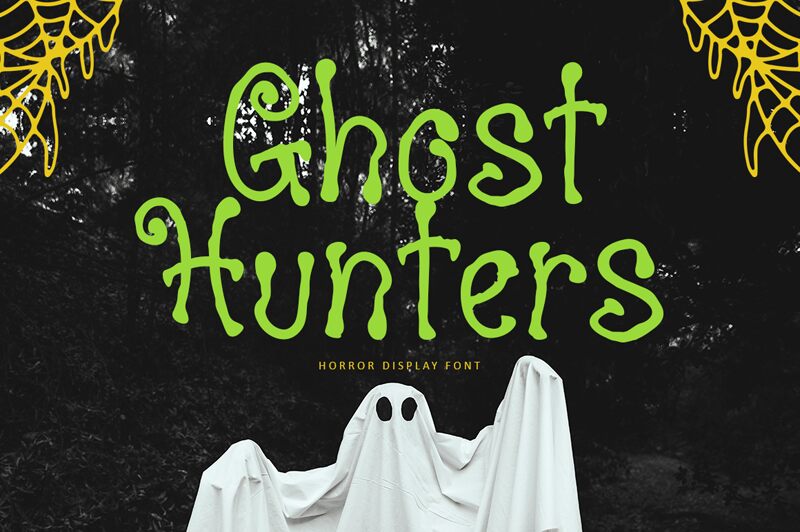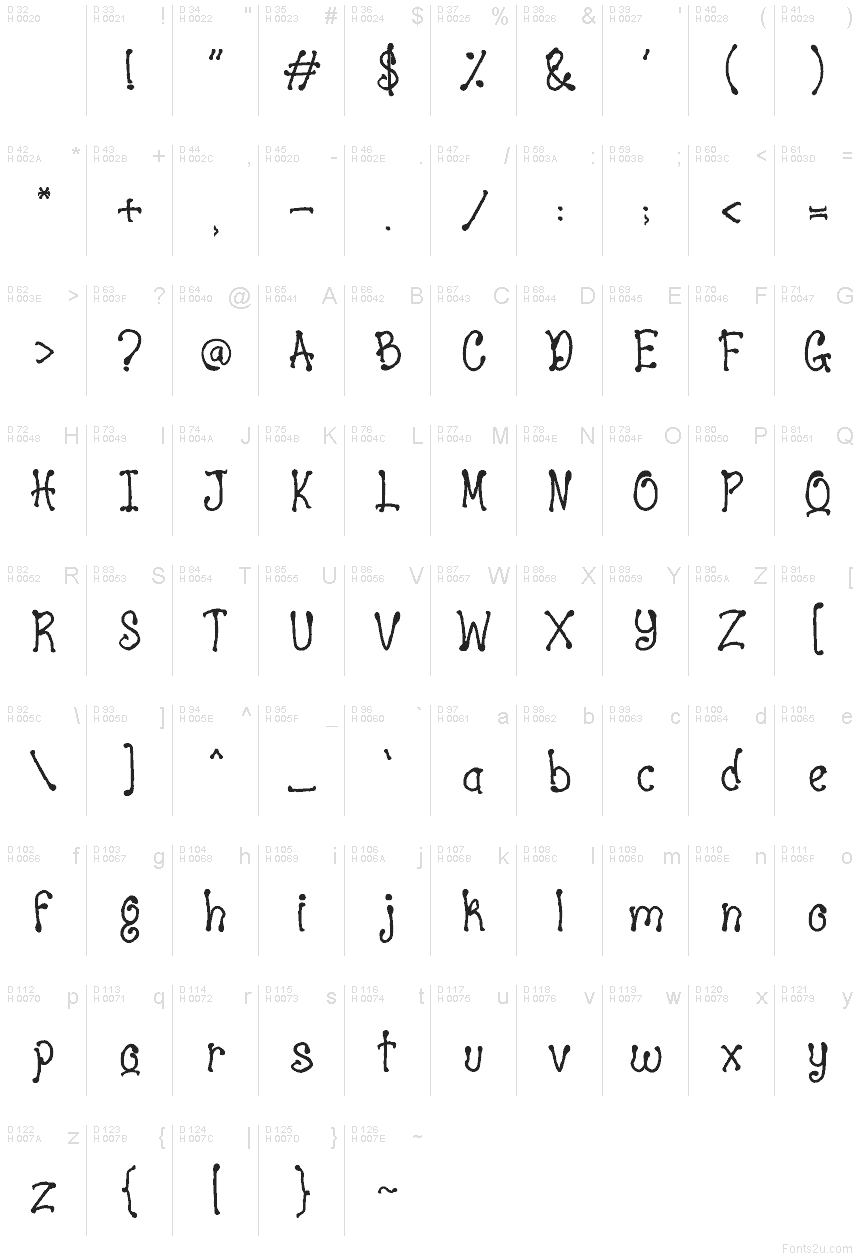
Ghost Hunters font by Illushvara is a free Halloween display font. Loose, inky curves wander like wisps of smoke, while knobby dots and tapering strokes add a friendly shiver rather than gore. The forms feel hand-drawn and a little lopsided-just enough to suggest candlelight and creaking floorboards-so headlines pop without turning unreadable.
Using Ghost Hunters, you can conjure party invitations, haunted house posters, trick-or-treat bags, seasonal menus, stickers, banners, and spooky social posts. This free font sets a playful eerie tone at large sizes and still holds together in short subheads. Pair it with a plain, unassuming sans for body copy, and keep tracking slightly open to let those swirly shapes breathe.